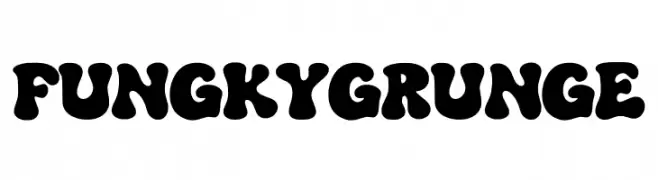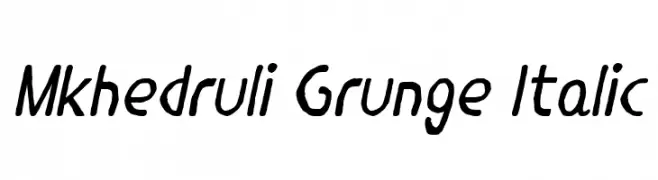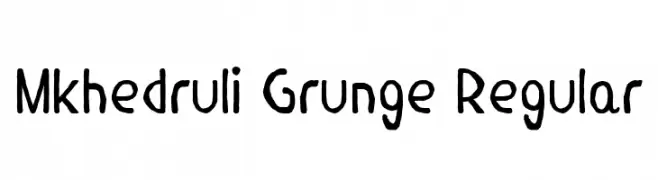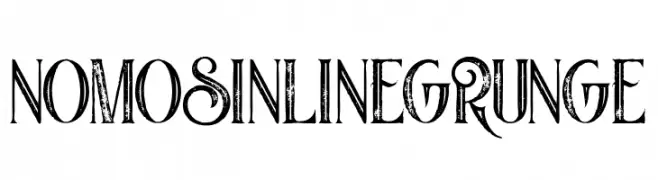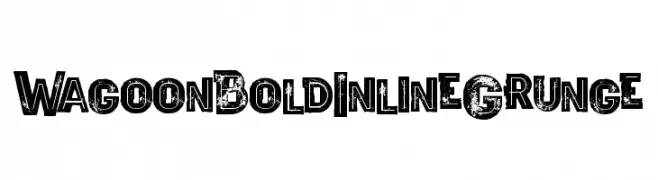
A bold, distressed font with a rugged, grunge aesthetic.
A bold, distressed font with a grunge aesthetic, featuring unique textures and edgy details.
A bold, distressed font with a grunge aesthetic.
A distressed, grunge-style font with a textured, rugged appearance.
A bold, distressed font with a grunge, vintage style.
A bold, grunge-style font with a distressed, brush-painted appearance.
A bold, textured font with a distressed, grunge aesthetic.
A bold, distressed font with a grunge texture for an edgy, rebellious look.
A bold, distressed font with a grunge, hand-painted style.
A bold, distressed font with a grunge texture, perfect for impactful designs.
A bold, distressed font with a grunge aesthetic, perfect for impactful designs.
A bold, distressed font with a rugged, grunge style.
A bold, distressed font with a grunge texture and rugged appearance.
A bold, distressed font with a grunge, textured style.
A distressed, grunge-style font with a textured, vintage appearance.
A bold, distressed font with a grunge style and rugged appearance.
A bold, distressed font with an edgy, grunge-like appearance.
A bold, distressed font with a grunge aesthetic and jagged edges.
A bold, distressed font with a grunge, textured style.
A bold, distressed font with a rugged, grunge aesthetic.
A bold, distressed font with a hand-drawn, grunge aesthetic.
A distressed, grunge-style font with bold, textured characters.
A distressed, chaotic font with jagged edges and a grunge aesthetic.
A grunge-inspired font with dripping, chaotic strokes for a rebellious look.
A bold, distressed font with a grunge, hand-drawn style.
A rugged, distressed font with a hand-drawn, vintage appearance.